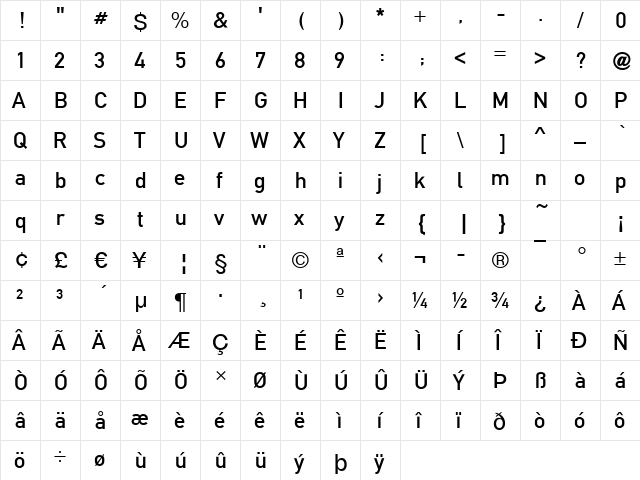
Fette-Mittelschrift Regular
Design Context for Fette-Mittelschrift Typeface
Fette-Mittelschrift takes a measured approach to typography — its balanced proportions and neutral character make it a reliable workhorse for both digital and print work.